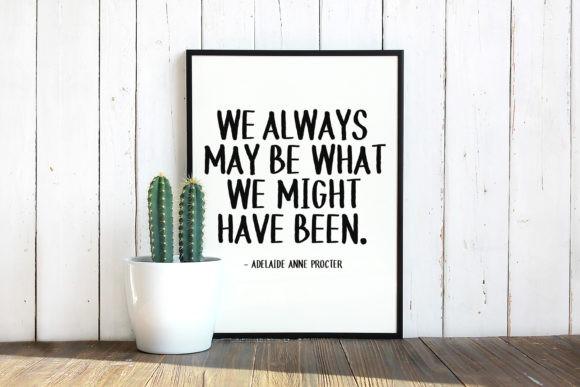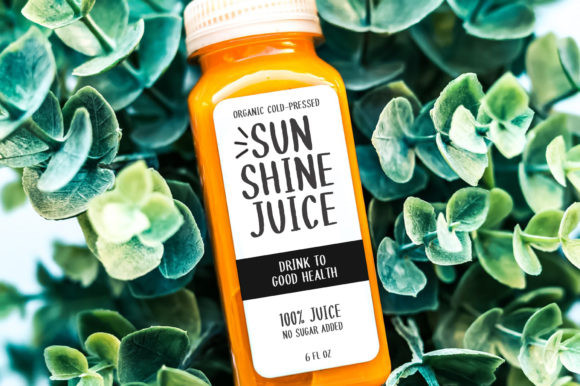
Beach House Font
Beach House is a contemporary rendering of classic sans serif style. It’s handwritten, and will look authentic, yet legible on any design project!